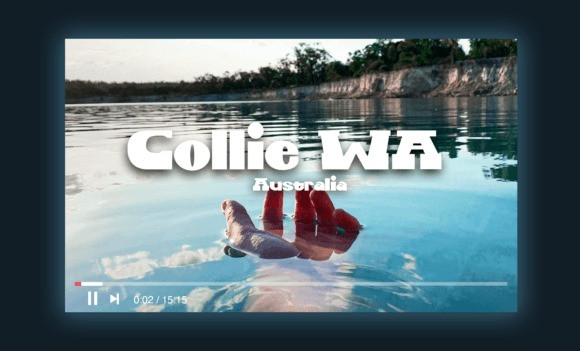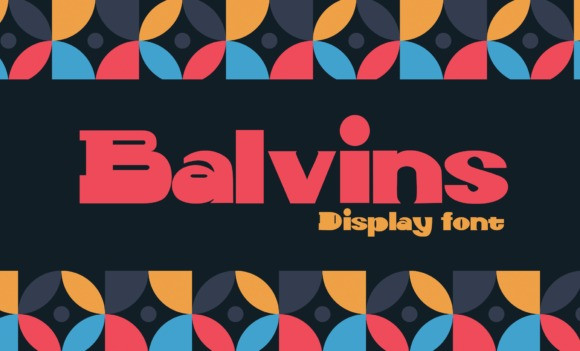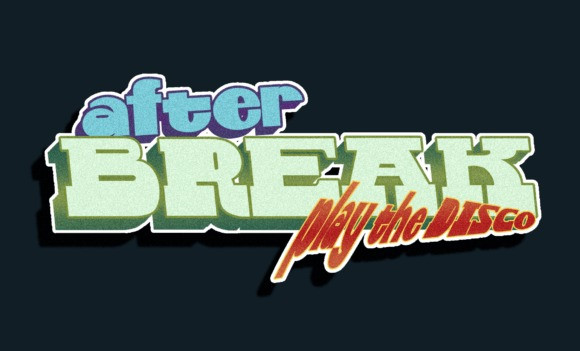
Balvins Font
Balvins Font , the perfect display font for all your design needs. Inspired by Swiss design and stylized font, Balvins boasts a bold, elegant look that’s perfect for creating eye-catching posters, thumbnails, movie titles, highlights, headers, and more. Its ’90s vibe adds a touch of nostalgia while still remaining modern and versatile. With Balvins, your designs will stand out and leave a lasting impression